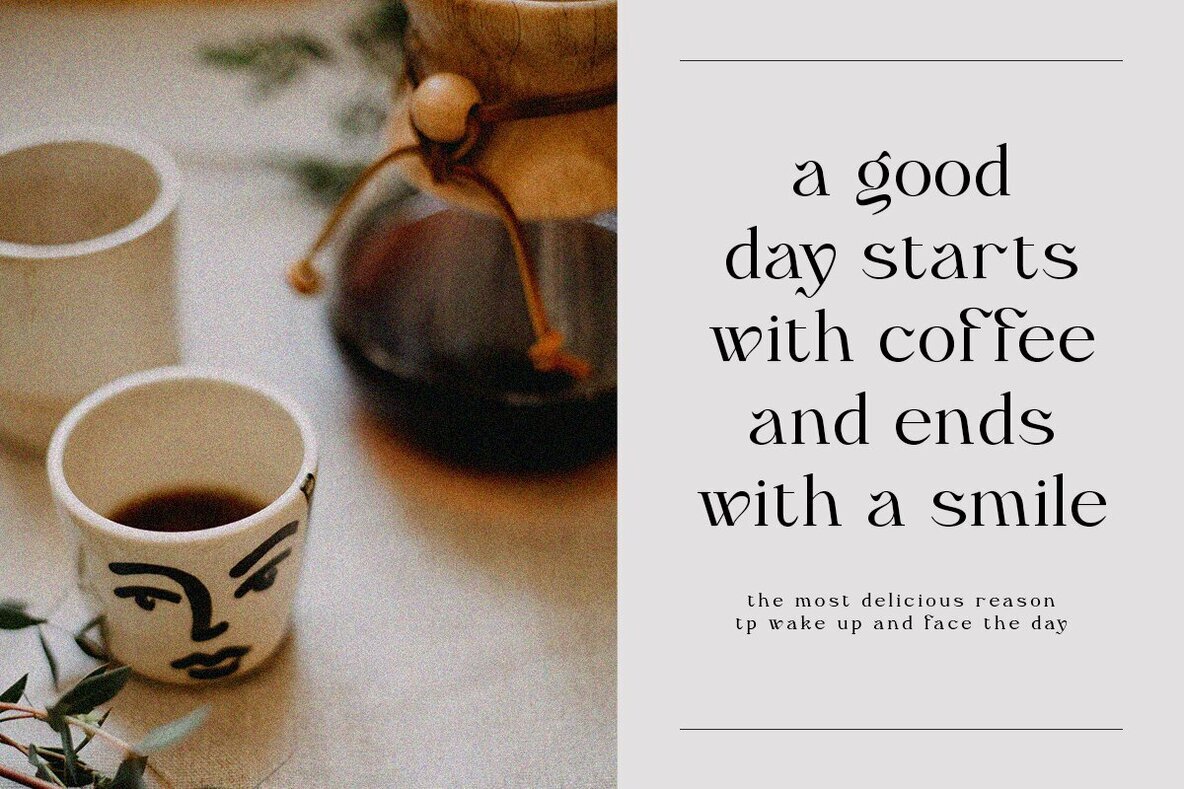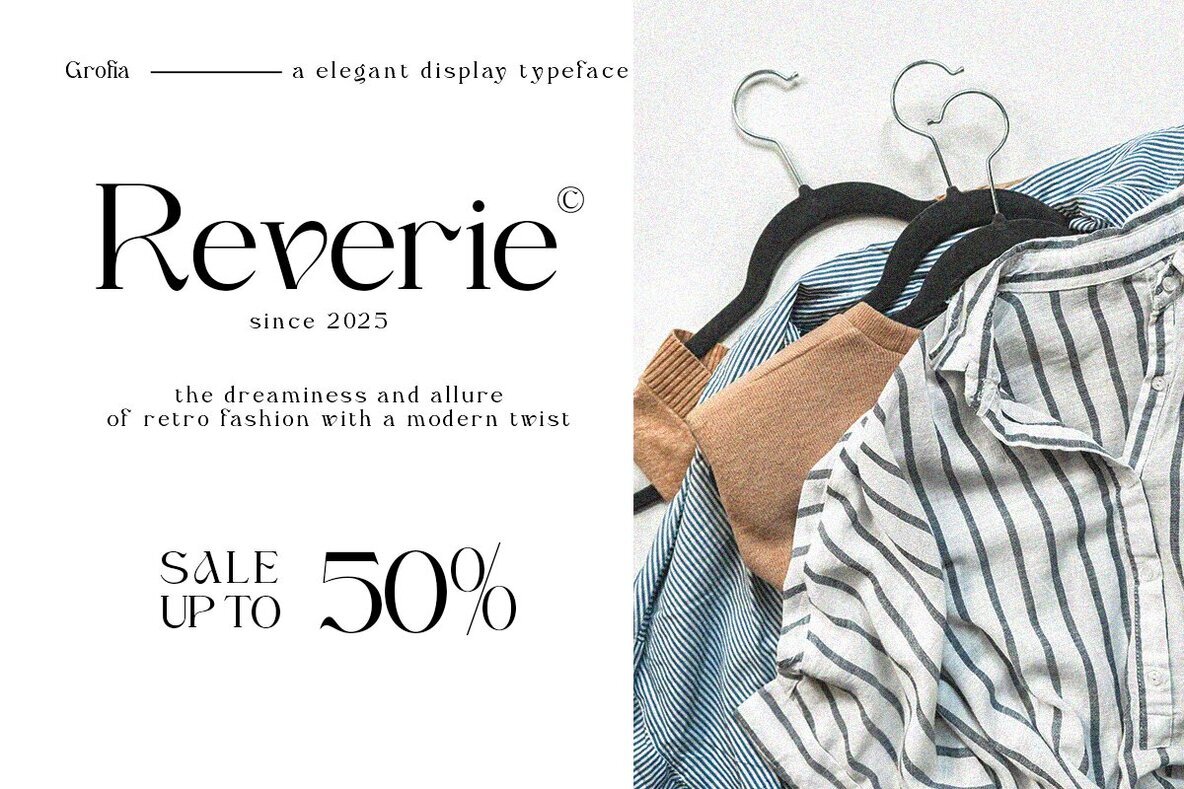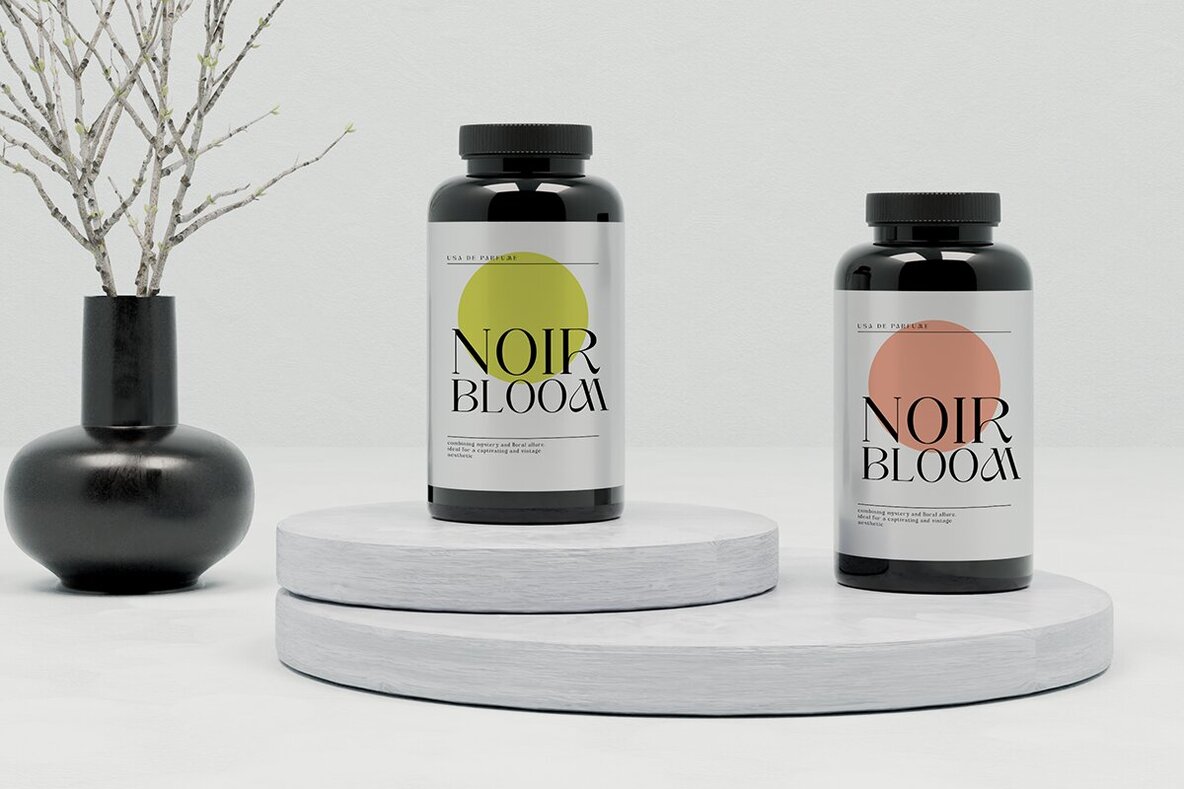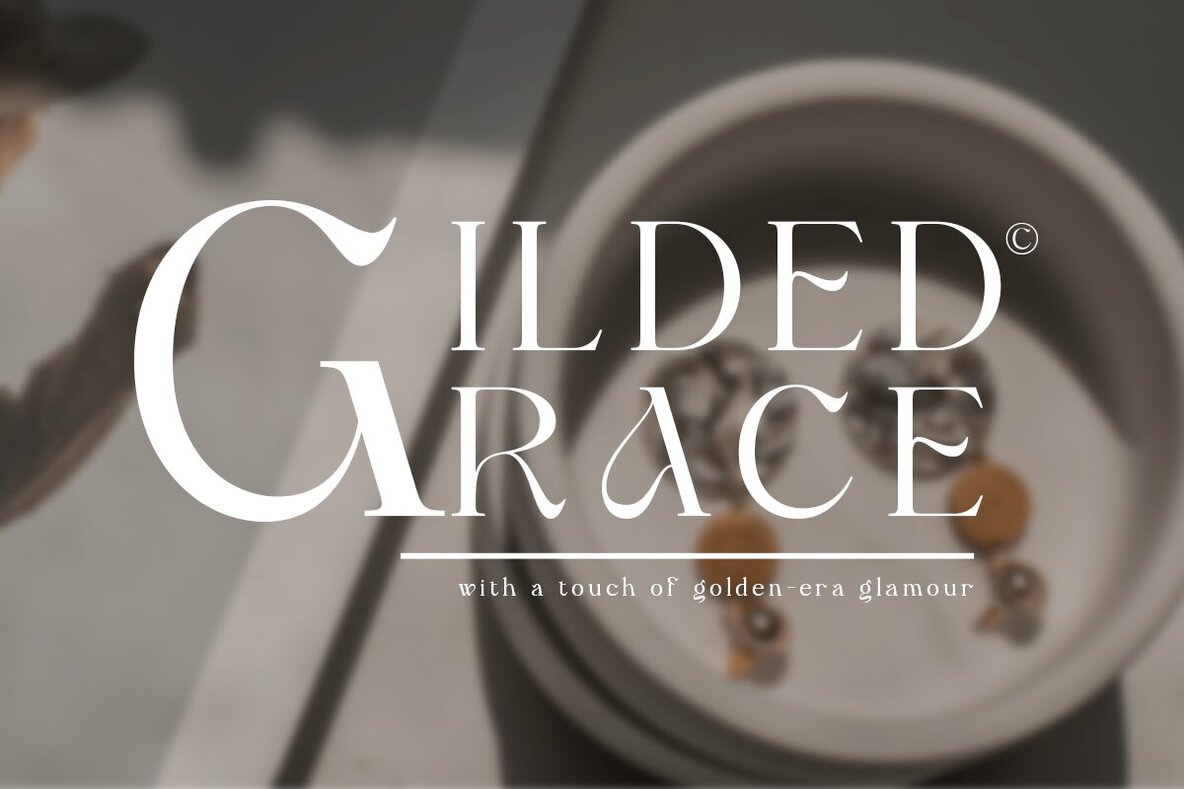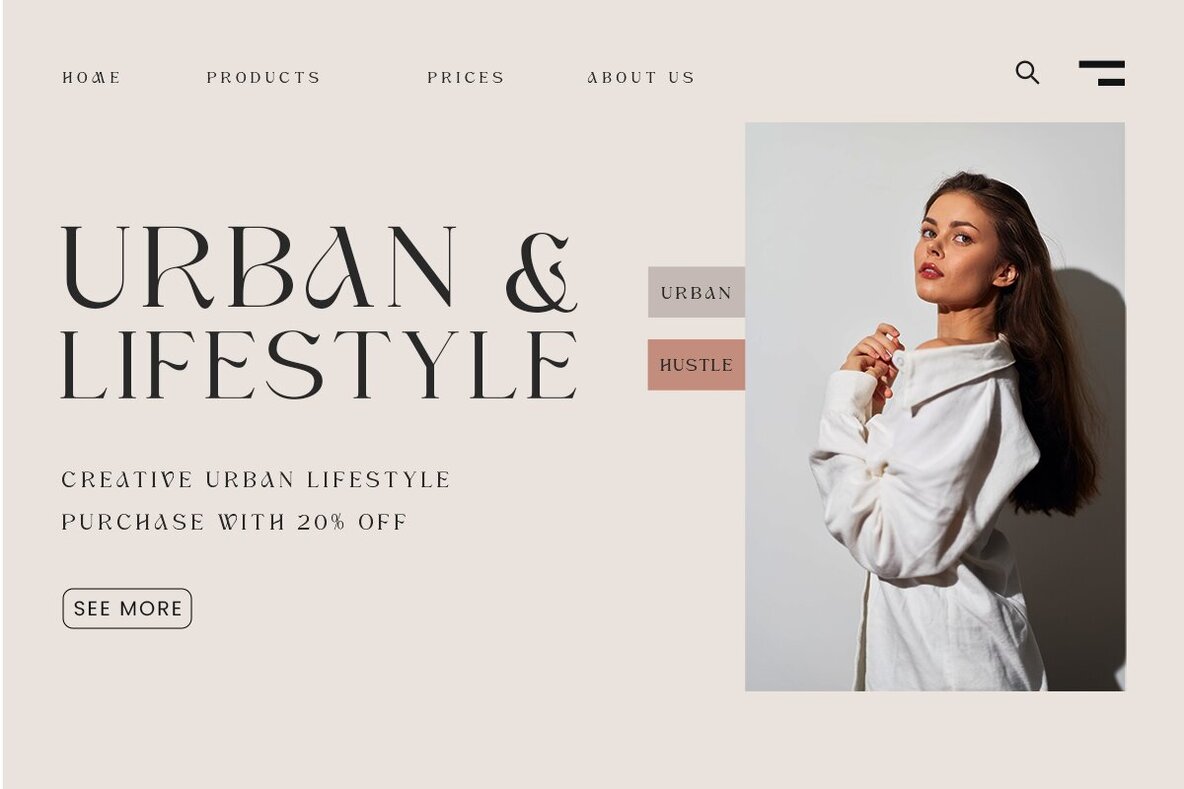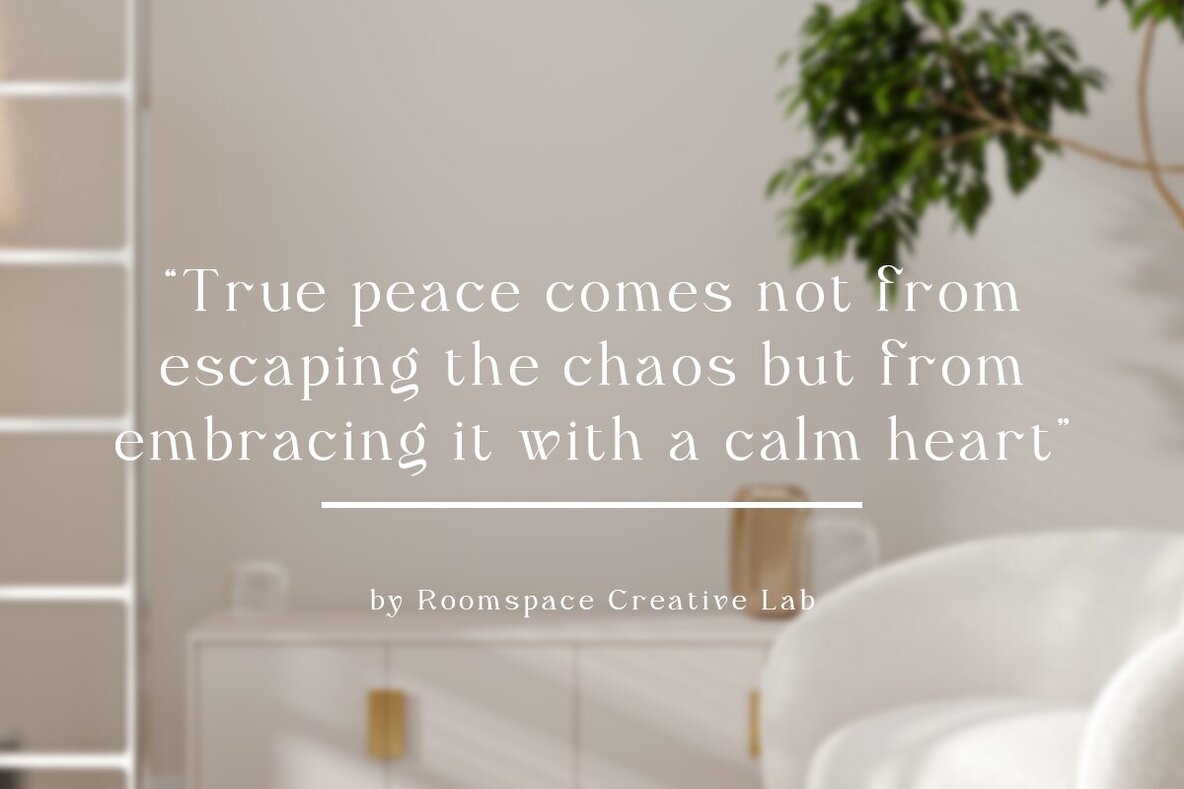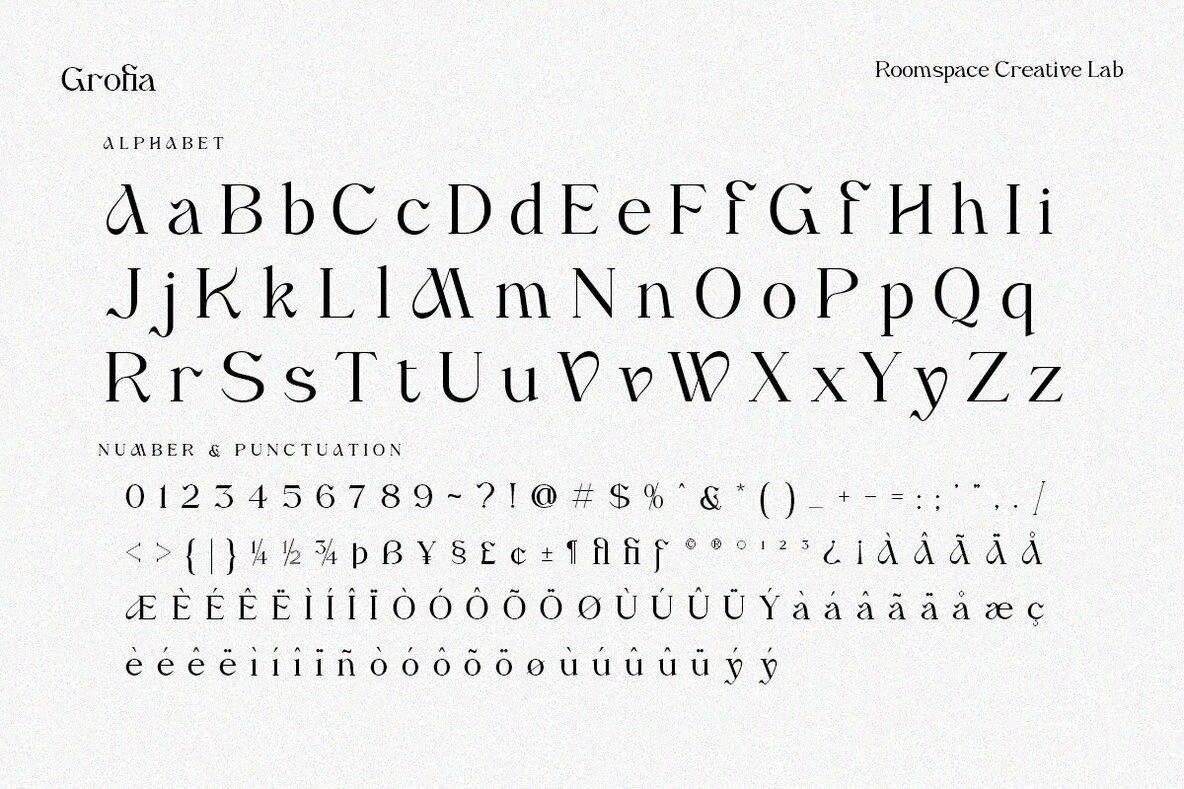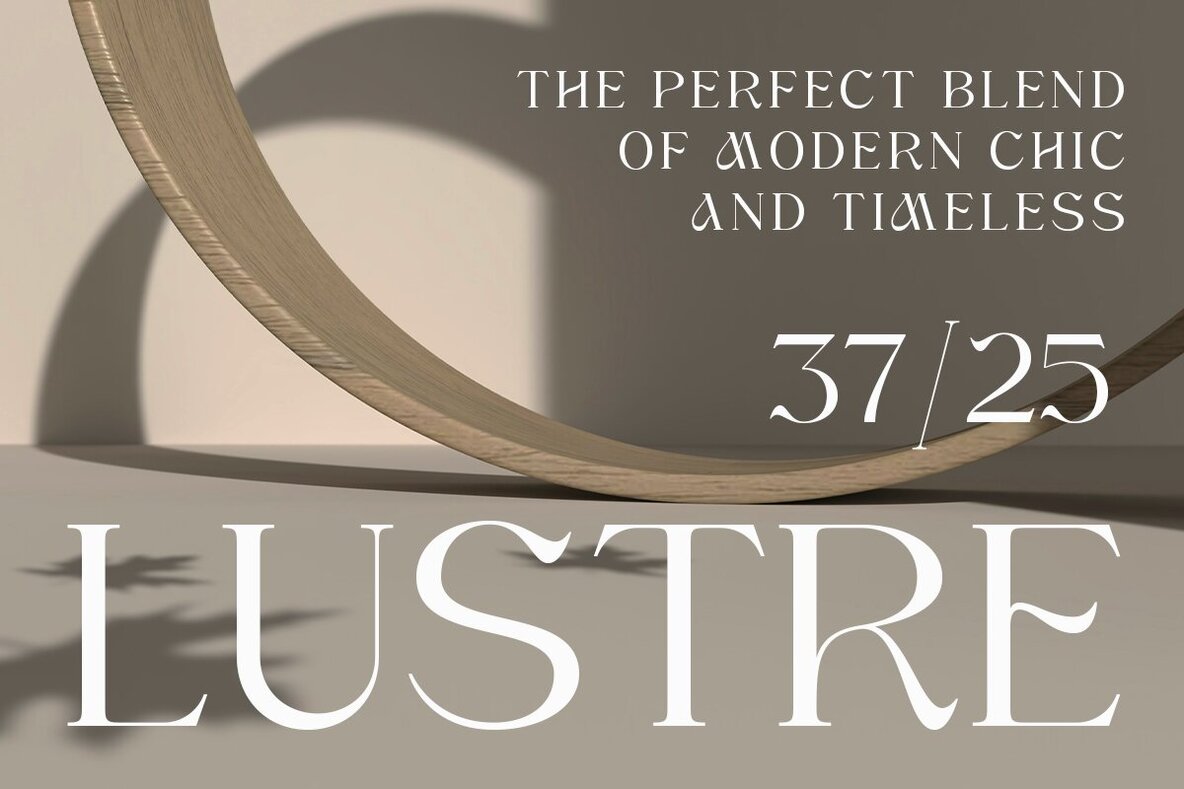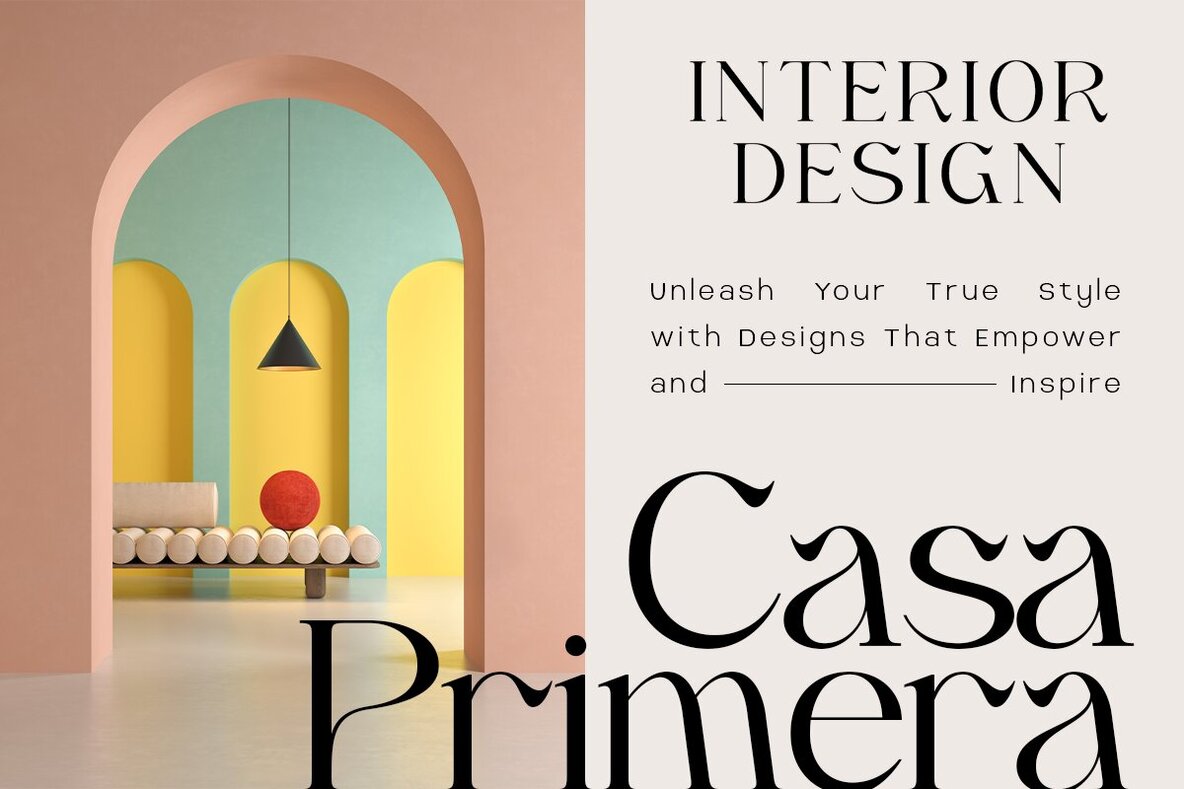
Grofia Font
Discover Grofia Serif, a unique and elegant typeface designed to elevate your creative projects. Its distinctive wave-like terminal details and luxurious style make it perfect for branding, editorial designs, packaging, and more. With a harmonious blend of modern sophistication and timeless luxury, Grofia Serif adds a touch of elegance to every design. Whether you're creating logos, wedding invitations, or website headers, this font ensures your work stands out with its graceful and artistic charm. FEATURE: